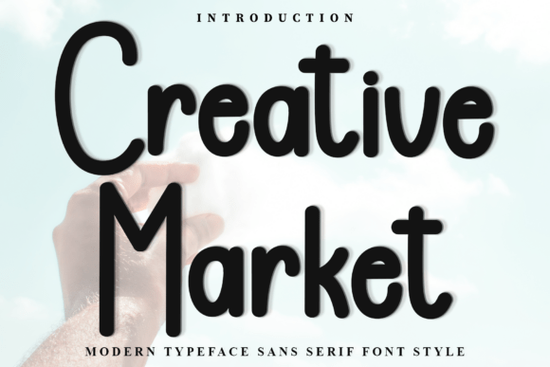
Looking for a font that brings warmth and personality to your designs? The Creative Market Font Font is a standout choice for anyone working on creative projects. With its soft, handcrafted feel and distinctive strokes, it adds character without overpowering your message. Whether you're designing invitations, branding materials, or crafting digital artwork, this script font blends elegance with approachability.
What makes Creative Market Font Font stand out?
Unlike generic fonts that blend into the background, this one has a unique rhythm in its letterforms. The subtle variations in stroke weight give it a natural, almost handwritten quality like something drawn by hand but polished enough for professional use. It’s not just pretty; it’s functional across many design needs.
You’ll find it especially useful for:
- Wedding invitations and event stationery
- Branding for small businesses and boutiques
- Print-on-demand products like mugs, tote bags, and wall art
- Personalized gifts and craft projects
- Social media graphics and blog headers
It supports multiple languages and includes a full range of characters, including ligatures and alternate glyphs. This means you can customize your text to match your brand voice or artistic style more precisely.
How to use it effectively in your workflow
For best results, pair it with clean, simple typefaces. Use the Creative Market Font Font for headlines, quotes, or key messages where you want attention. Then choose a neutral sans-serif for body text to keep things balanced.
If you’re into crafting or print-on-demand, consider using it for layered designs. Its flowing lines work well when combined with floral patterns, watercolor textures, or minimal backgrounds. The result? Designs that feel personal and authentic.
Final thoughts: Is it right for your next project?
If you’re looking for a font that feels human, thoughtful, and versatile, Creative Market Font Font delivers. It’s not flashy, but it’s memorable. It works well in both digital and physical formats, and it fits naturally into a wide variety of creative fields.
Whether you're a designer, crafter, small business owner, or hobbyist, this font gives you a reliable tool to make your work feel more personal and intentional.